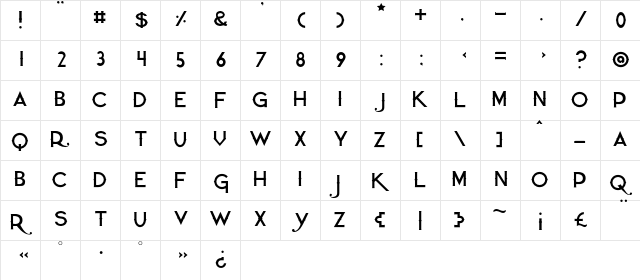
Quiet the Thief Thin
| Foundry | Matthew Tyndall |
| Designer | Matthew Tyndall |
Design Context for Quiet the Thief Typeface
Quiet the Thief is a composed and adaptable typeface that performs quietly and consistently across a wide range of design contexts. Its slender proportions lend an understated elegance to any composition.